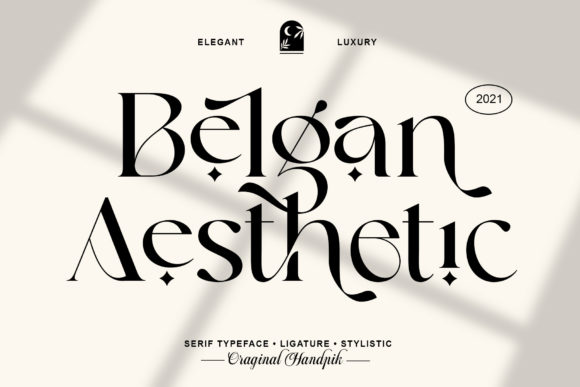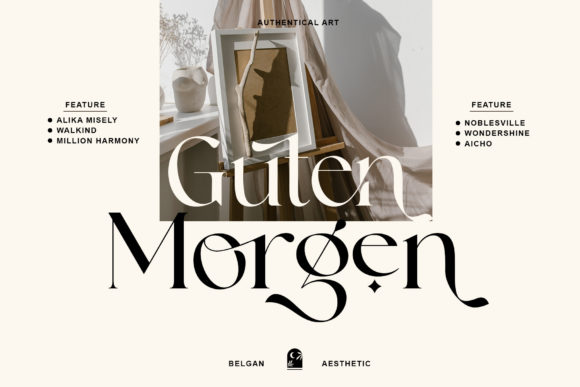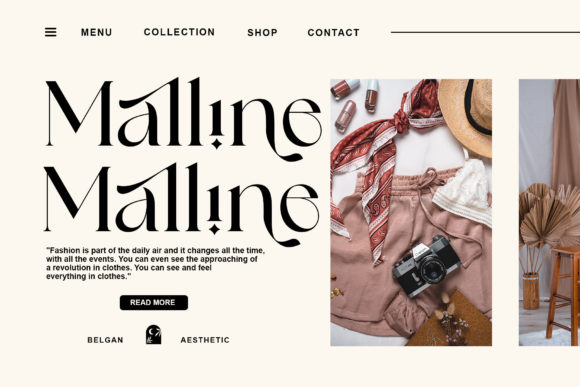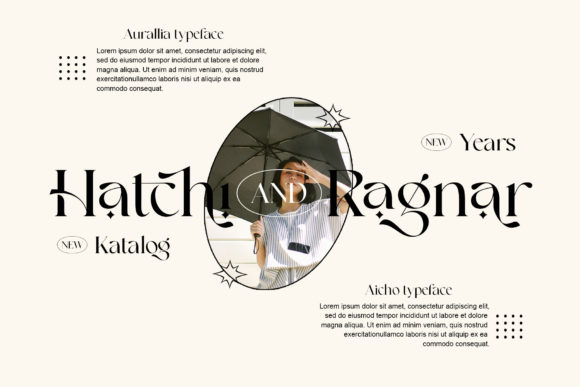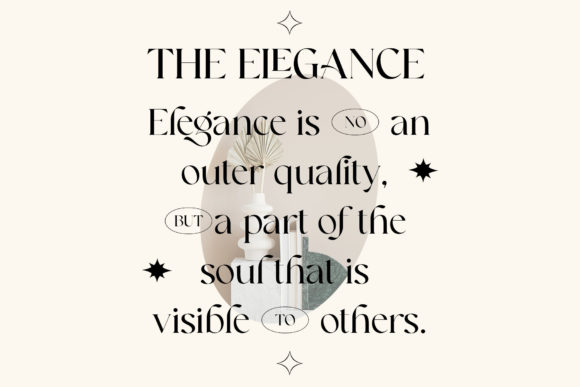
Belgan Aesthetic Font
Belgan Aesthetic is a stylish and distinct serif font. It is PUA encoded which means you can access all of the glyphs and swashes with ease!